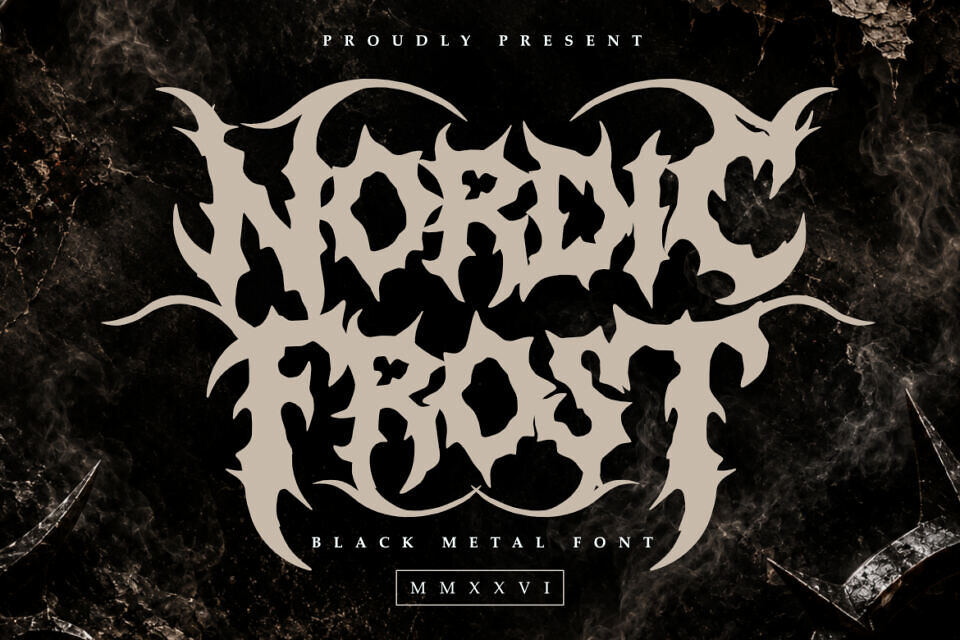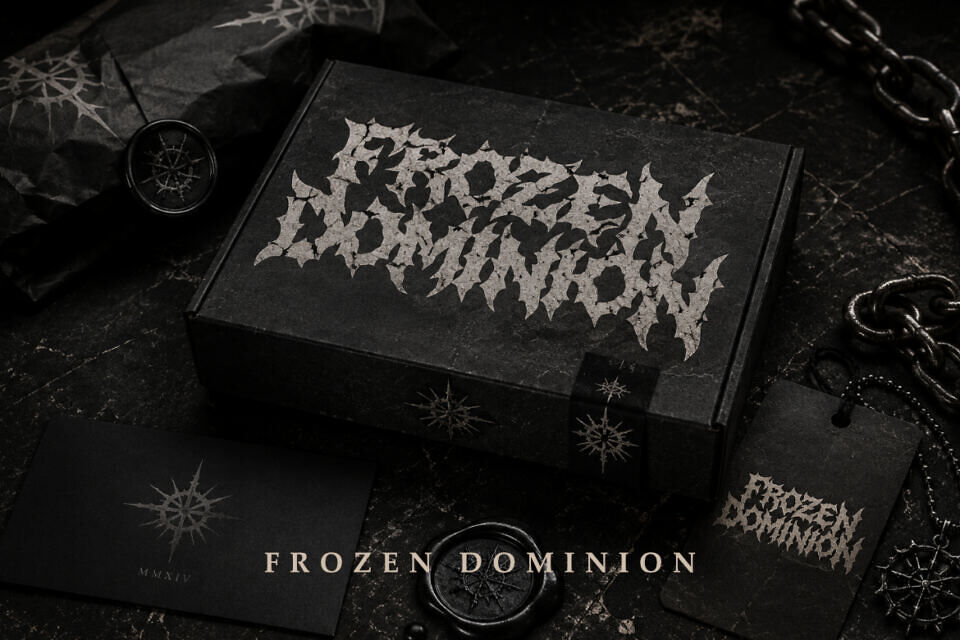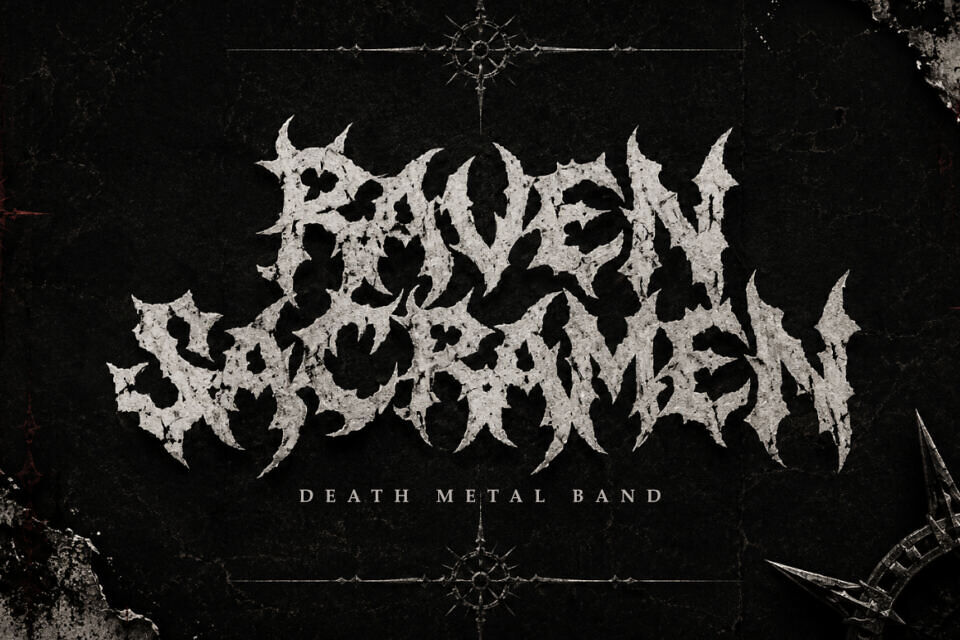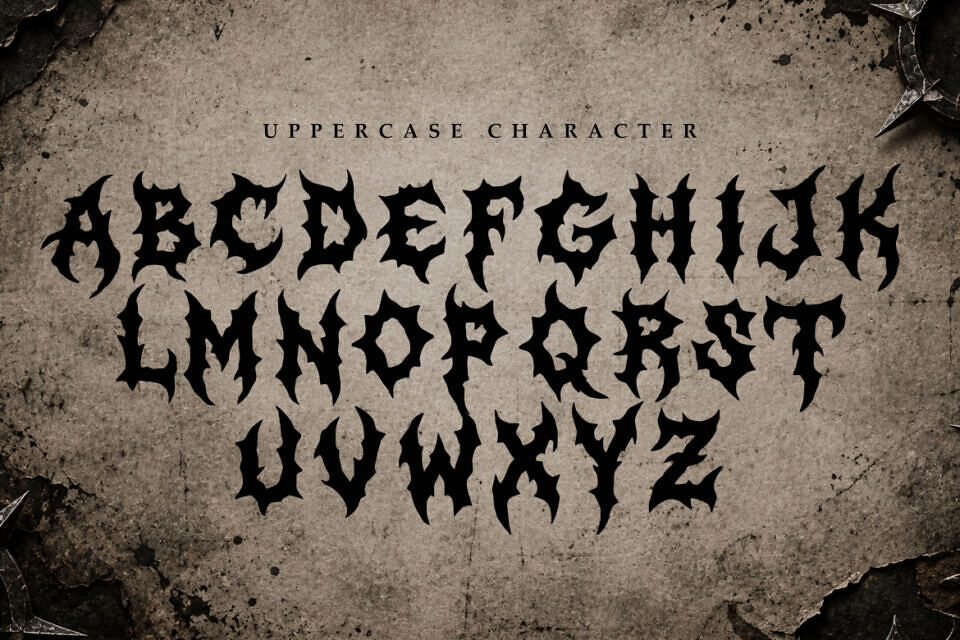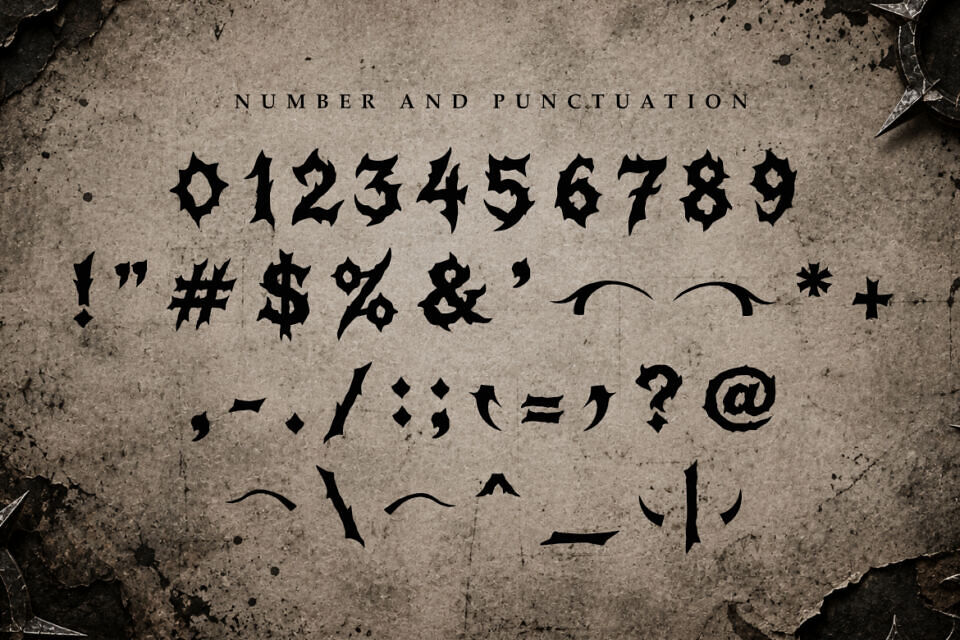
Nordic Frost Font
Nordic Frost is a brutal professional font designed for sophisticated branding and high-end extreme design projects. Its sharp and aggressive letterforms provide a contemporary yet timeless feel, striking a perfect balance between cold atmospheric darkness and modern metal aesthetics.
Whether you are crafting a corporate identity for an extreme label, designing sleek business cards for a tattoo studio, or working on editorial content, Nordic Frost ensures your work exudes professionalism and style.